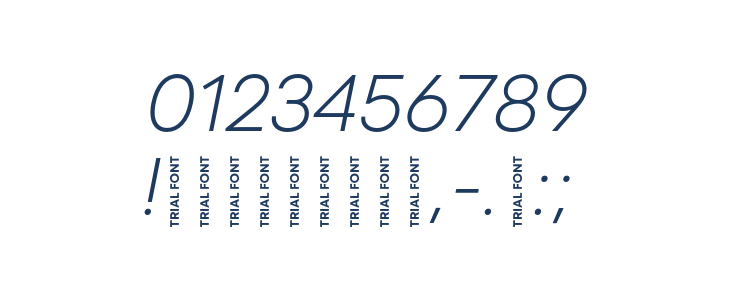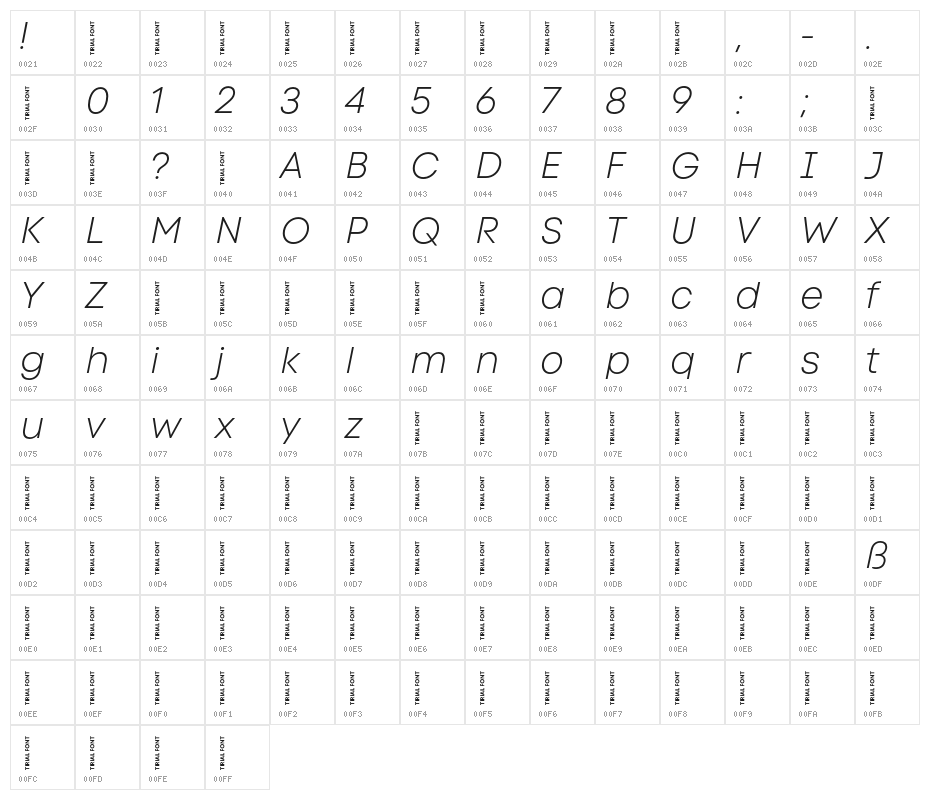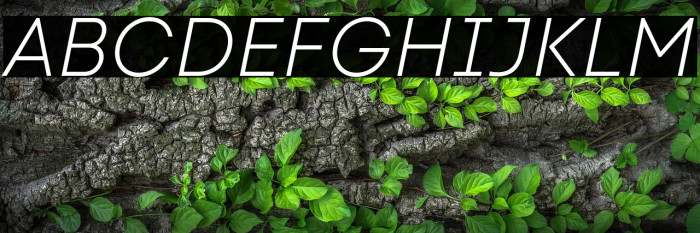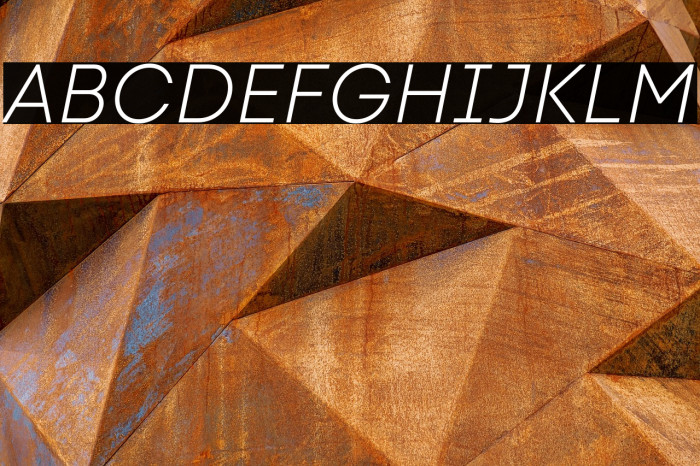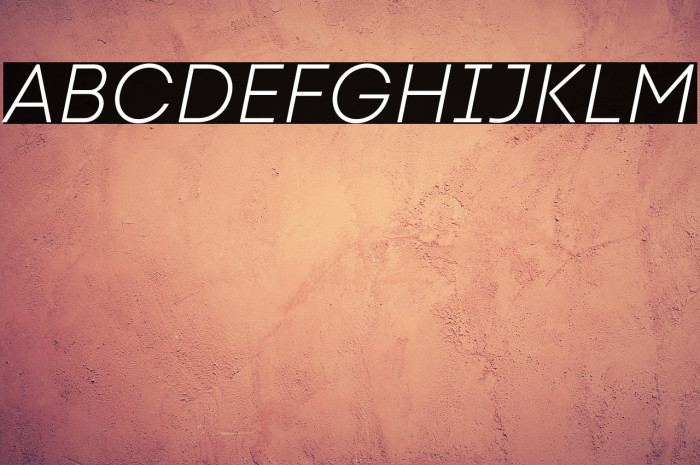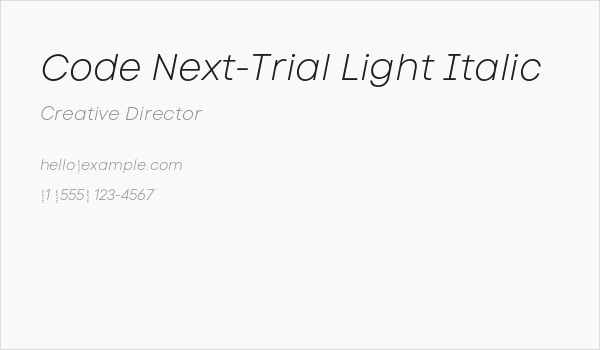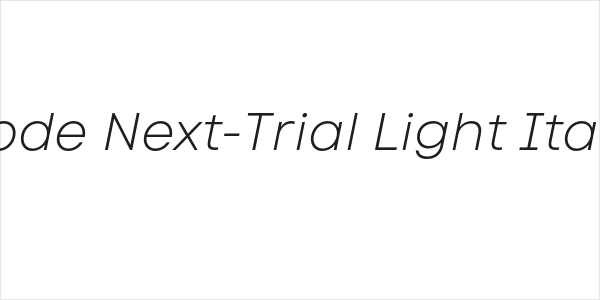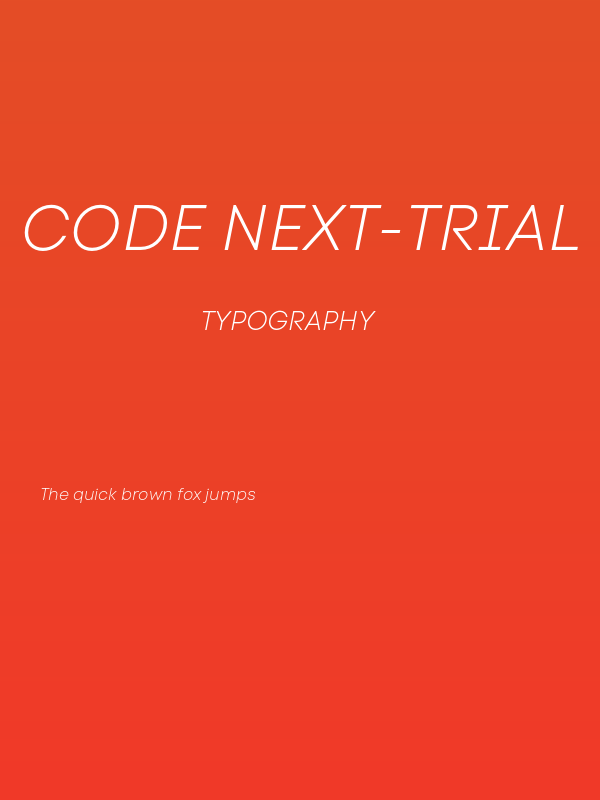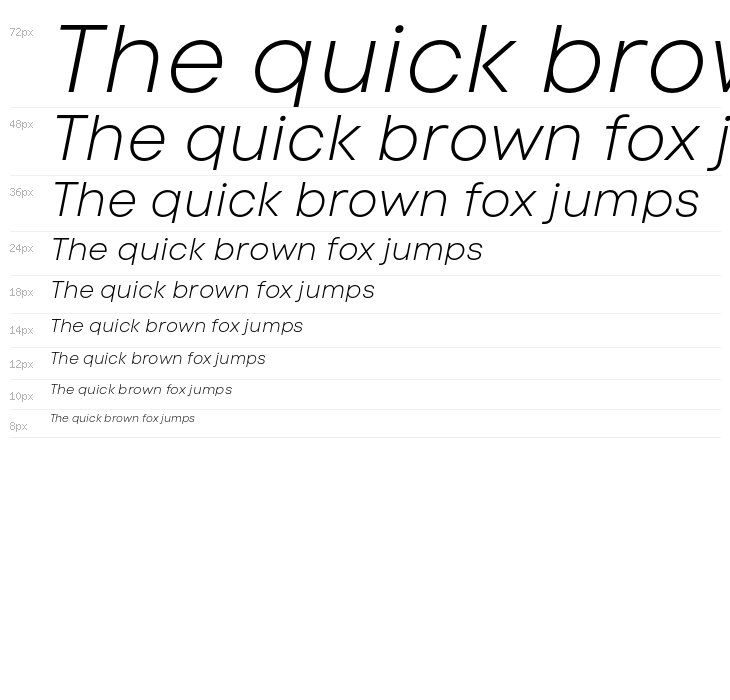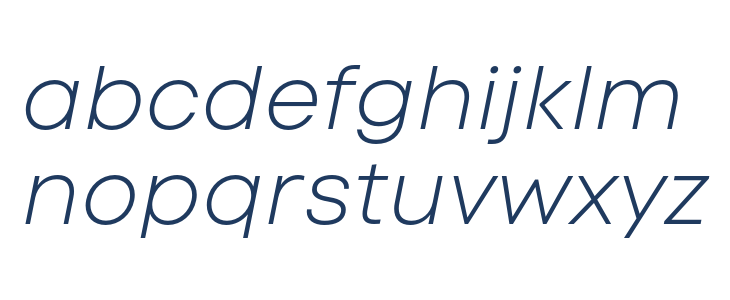
Code Next-Trial Light Italic Font
Code Next-Trial Light Italic Description
This font features a sleek and modern sans-serif design with a light weight and italic style. The characters are elegantly slanted, providing a sense of motion and fluidity. The clean lines and minimalistic approach make it highly versatile for various design applications. The numerals are consistent with the alphabetic characters, maintaining the same light and airy feel. Special characters are distinct yet harmonious with the overall design, ensuring readability and aesthetic appeal.
| Proposed Projects | Ideal for modern branding, editorial design, digital interfaces, and minimalist posters. |